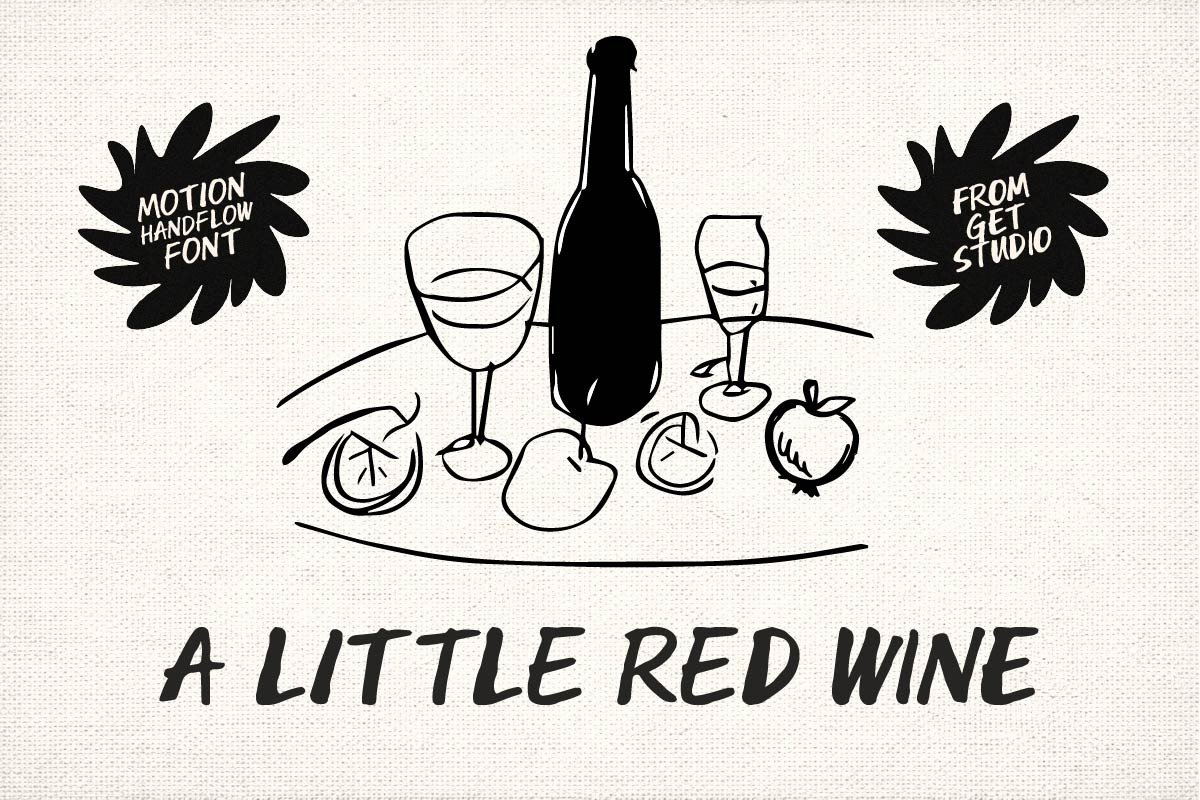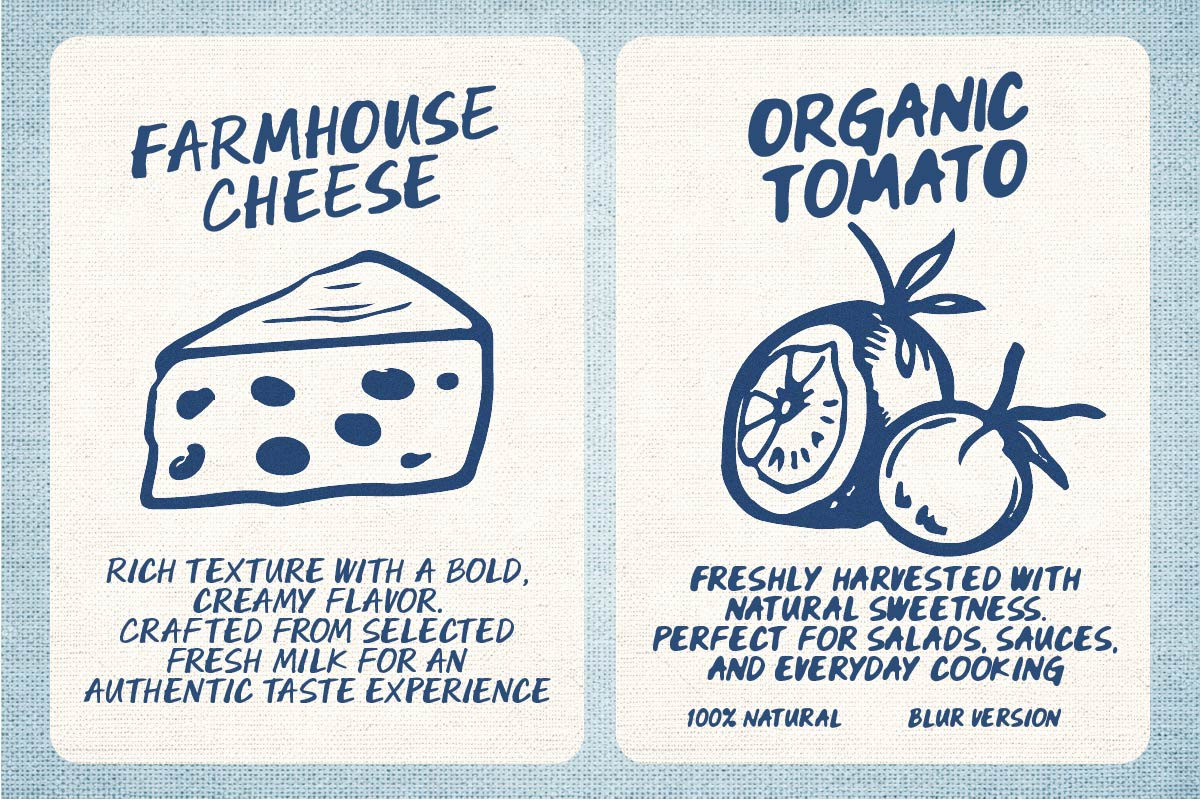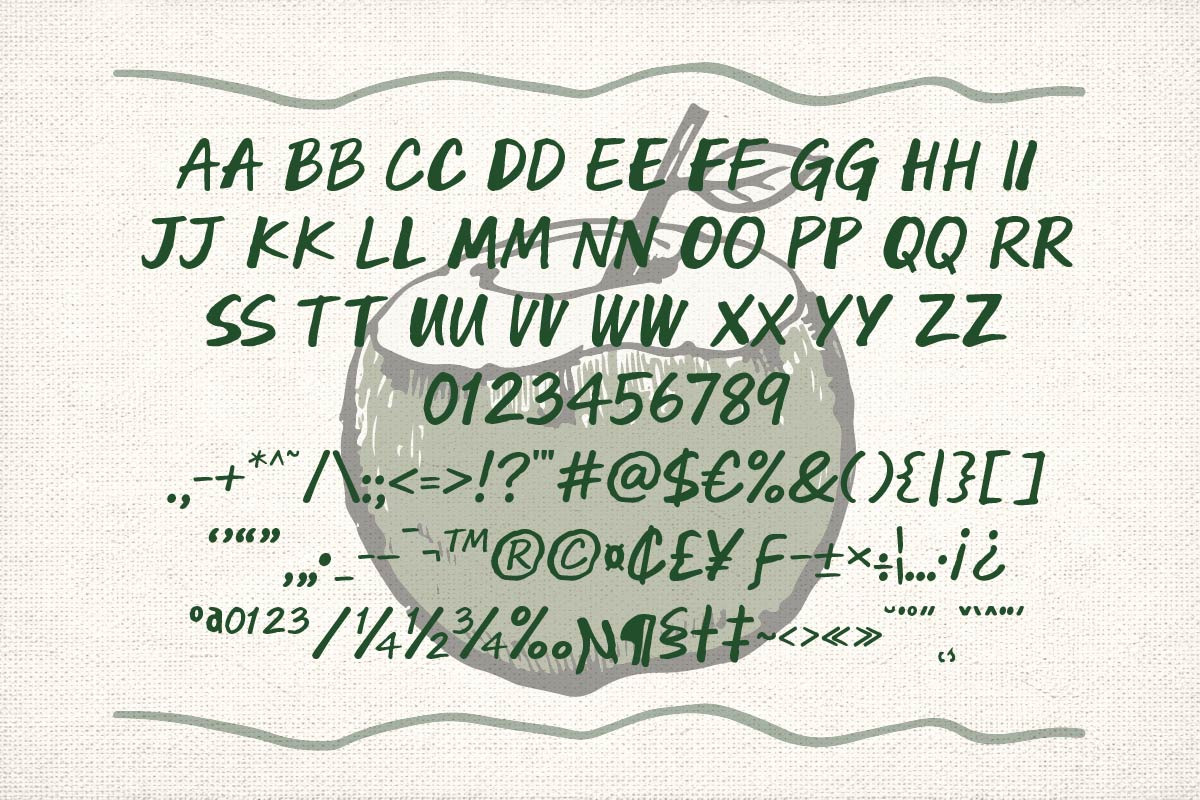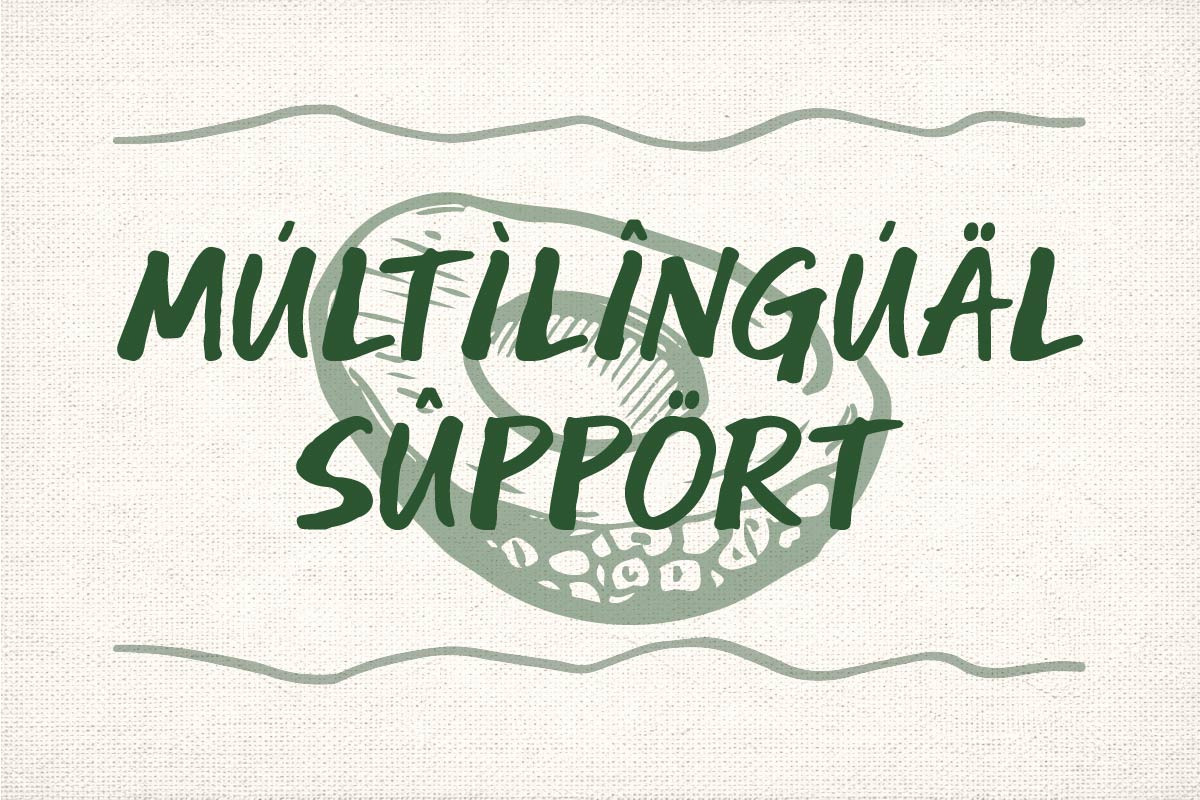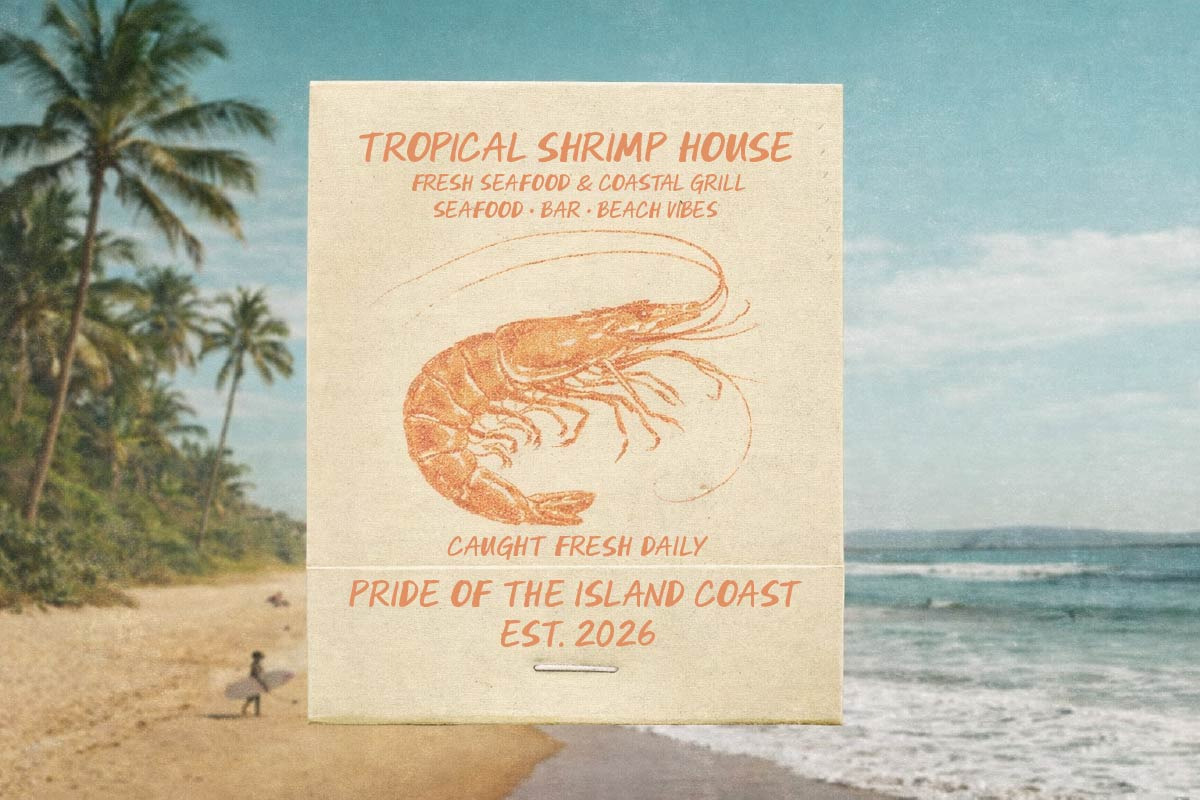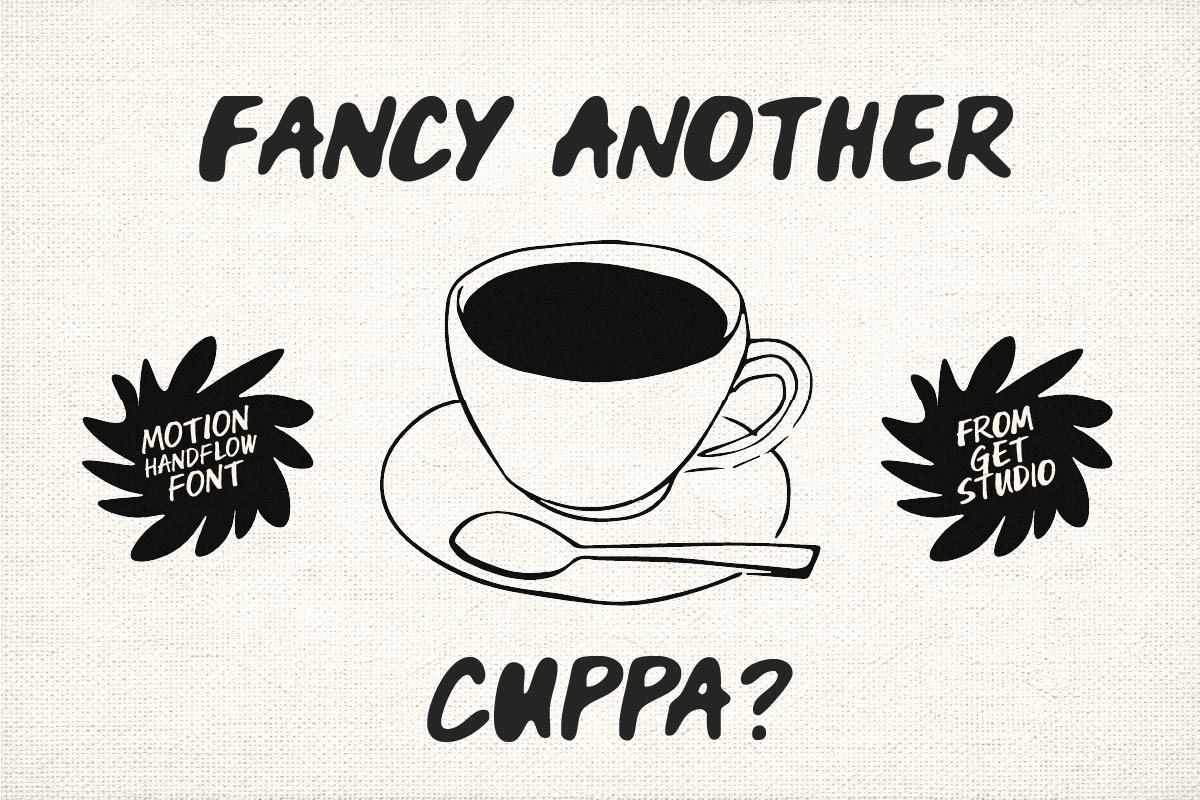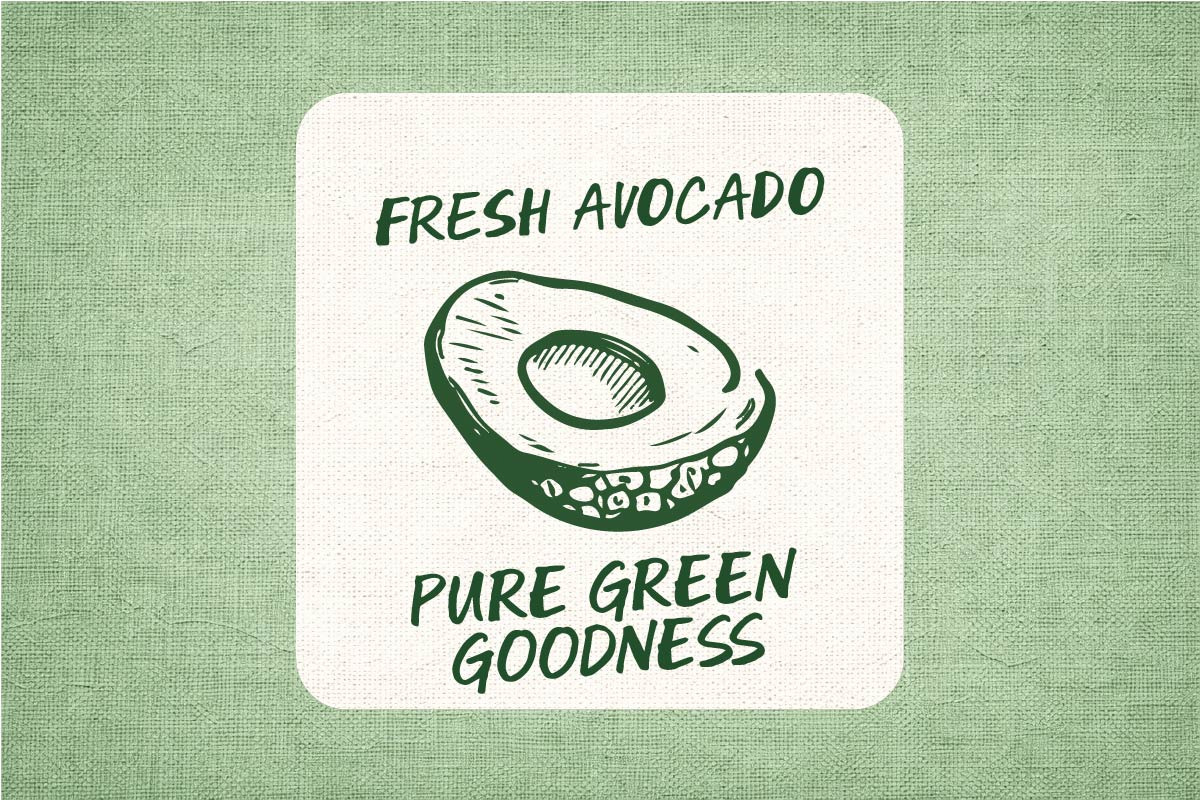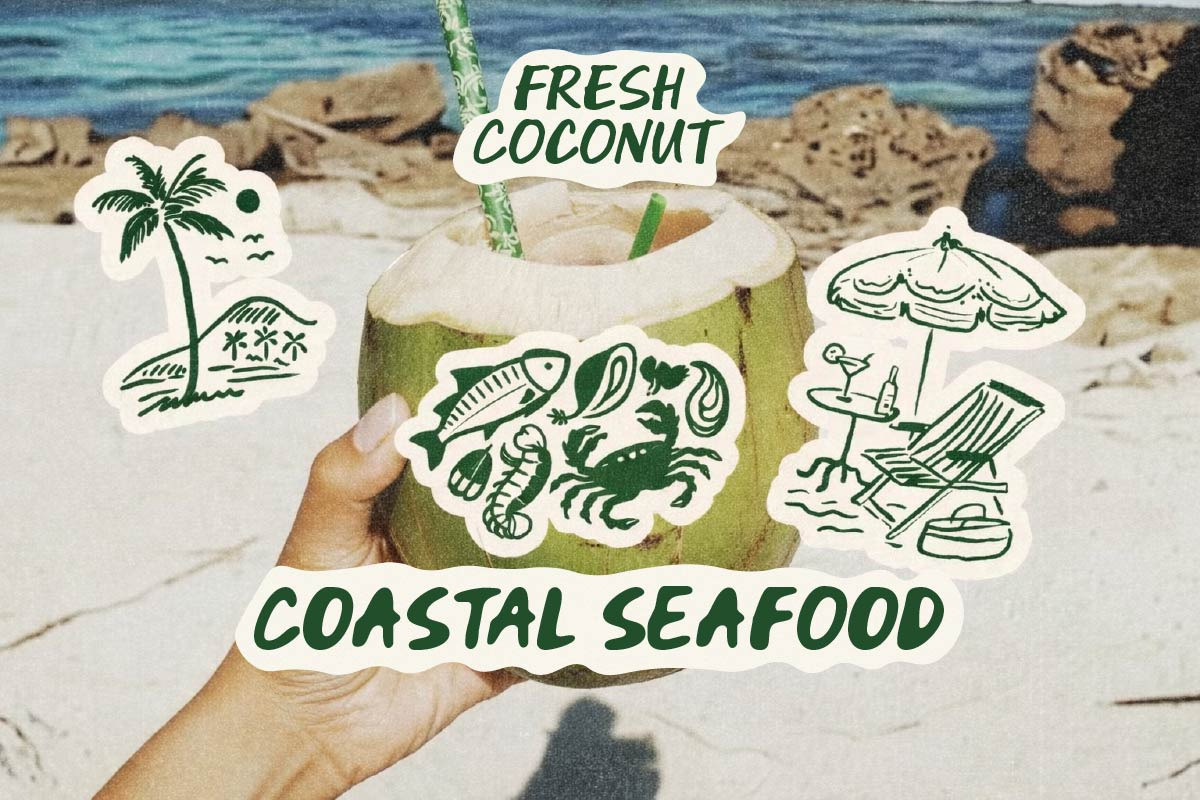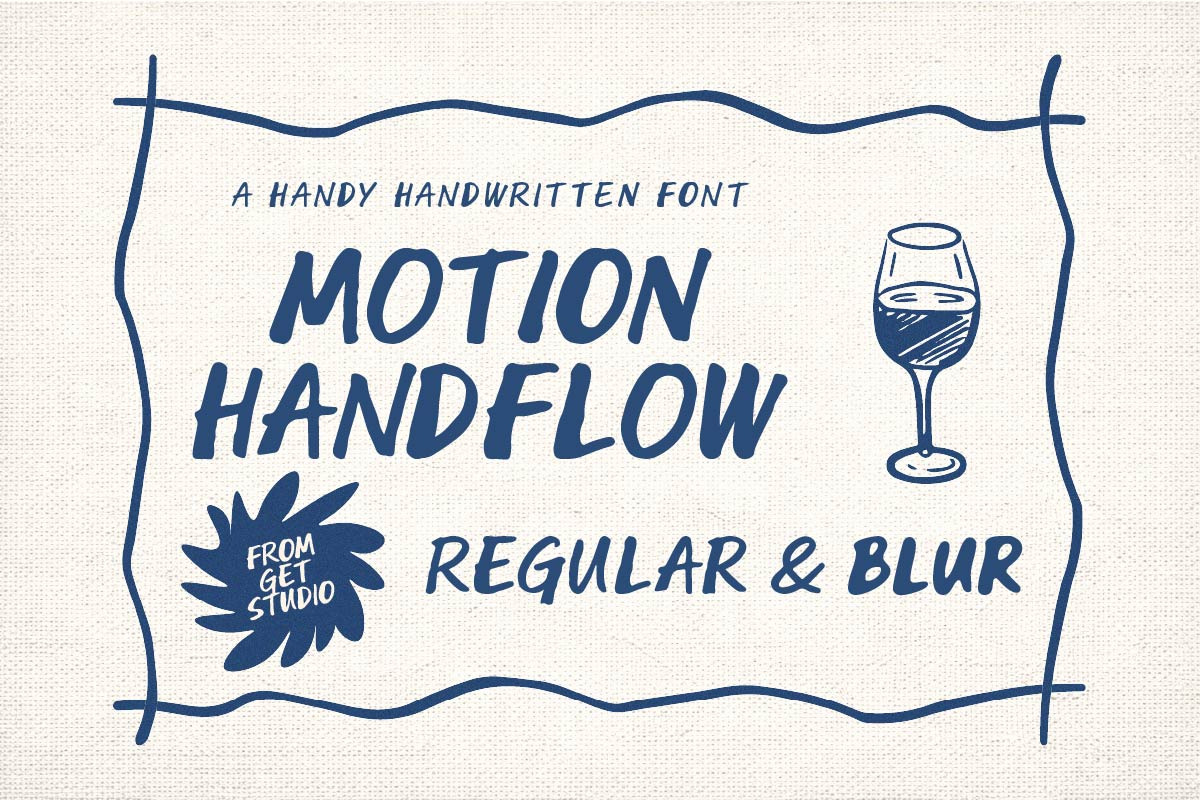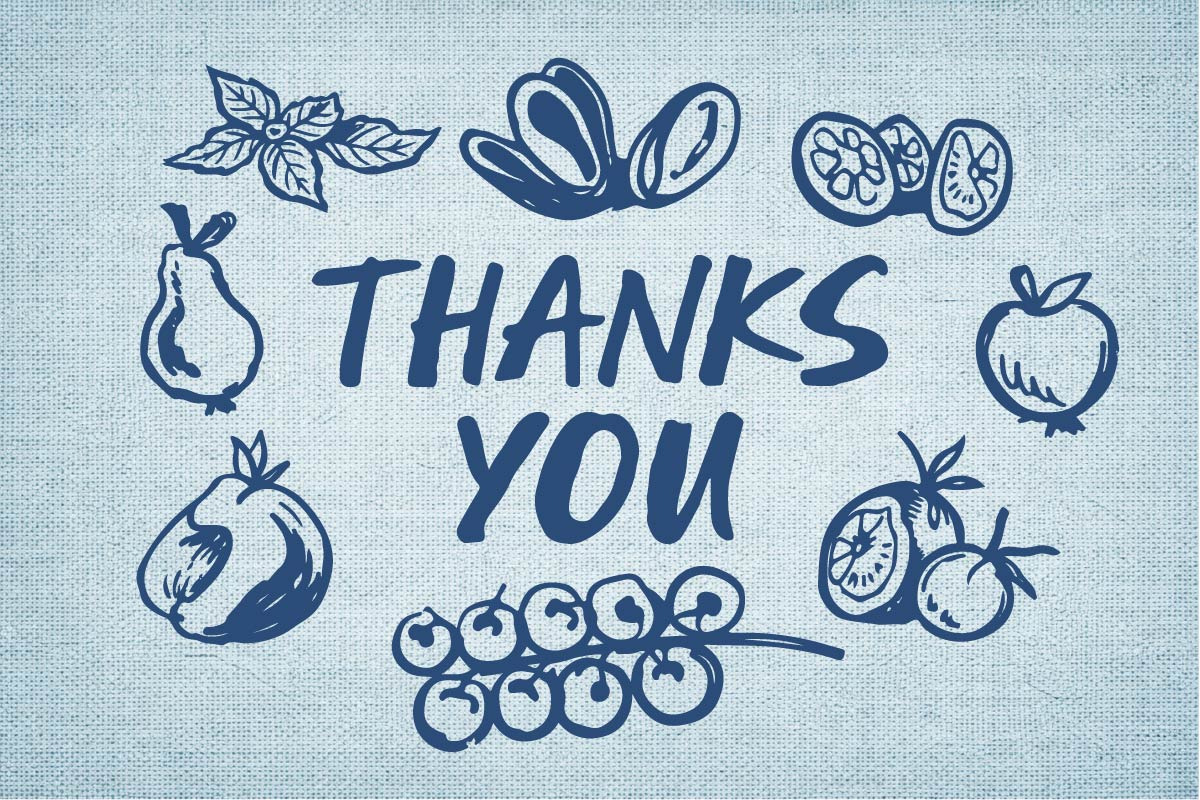
Motion Handflow Font
Motion Handflow is a casual handwritten font that moves naturally across the page. Each stroke feels quick, confident, and human—capturing the effortless rhythm of real handwriting.
Its relaxed shapes and smooth flow give designs a warm, approachable personality while still feeling bold and clear. Motion Handflow works beautifully for food packaging, product labels, branding, posters, quotes, and everyday creative projects that need an organic handcrafted touch.
Simple, lively, and full of motion—this is handwriting that feels alive.